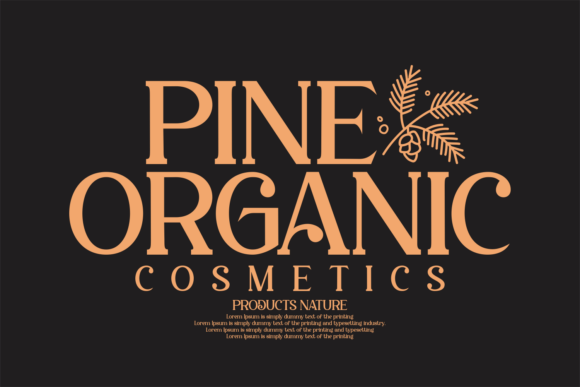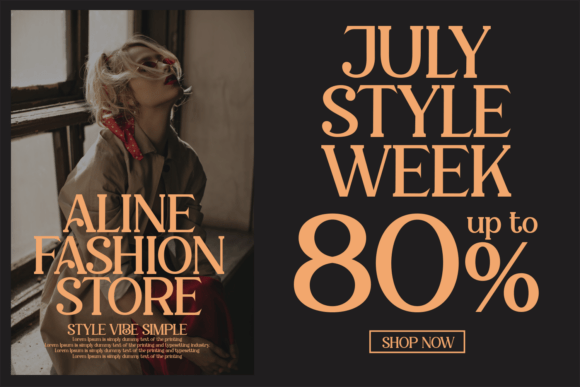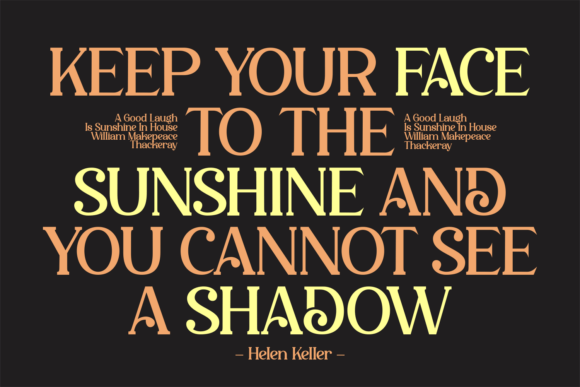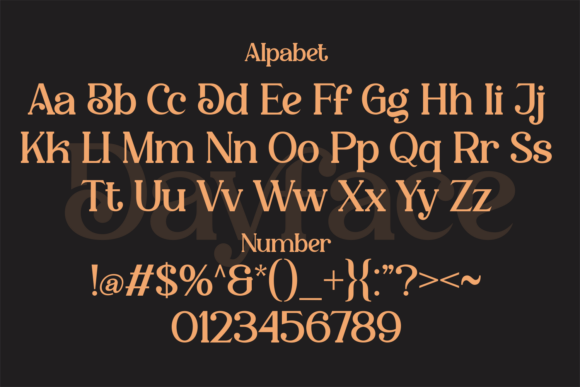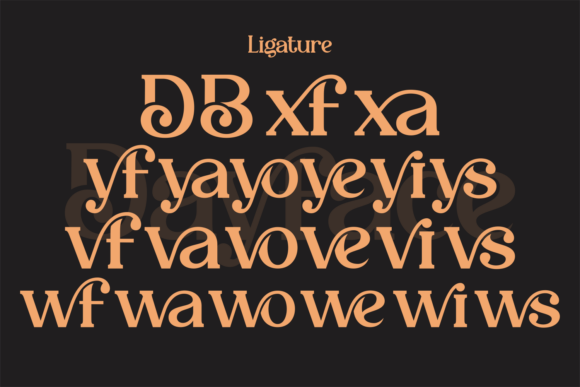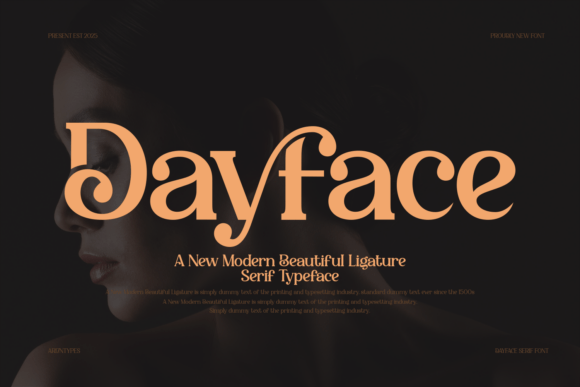
Introducing Dayface: The Luxurious Modern Serif Ligature Typeface
In the world of typography, a new font has emerged that is making waves among designers and crafters alike. Meet “Dayface,” a modern serif ligature typeface that exudes luxury and elegance, making it the perfect choice for branding, product design, and marketing visuals. In this article, we’ll dive into the features and benefits of Dayface, and explore how it can elevate your design game.
What is Dayface?
Dayface is a carefully crafted typeface that combines the classic appeal of serif fonts with the sophistication of ligatures. Its modern design makes it an ideal choice for brands looking to make a statement and stand out in a crowded market. With its elegant lines and luxurious feel, Dayface is perfect for high-end branding, product packaging, and marketing materials.
Key Features of Dayface
- Modern Serif Design: Dayface boasts a sleek and contemporary serif design that is both timeless and trendy.
- Ligature Support: The font features a range of ligatures, giving your text a unique and sophisticated look.
- Luxurious Appeal: Dayface’s elegant lines and refined curves make it perfect for high-end branding and marketing materials.
- Versatile: The font is suitable for a wide range of applications, from headlines and titles to body text and captions.
Benefits of Using Dayface
So, why choose Dayface for your design projects? Here are just a few benefits of using this stunning typeface:
- Elevate Your Brand: Dayface’s luxurious appeal makes it perfect for brands looking to elevate their image and stand out in a crowded market.
- Enhance Readability: The font’s clear and elegant design makes it easy to read, even at small sizes.
- Increase Versatility: Dayface’s range of ligatures and versatile design make it suitable for a wide range of applications.
- Save Time: With Dayface, you can create stunning text-based designs quickly and easily, saving you time and effort.
Who is Dayface for?
Dayface is perfect for a range of designers and crafters, including:
- Graphic Designers: Looking for a luxurious and elegant font for branding, packaging, and marketing materials.
- Product Designers: Seeking a high-end font for product design, packaging, and labeling.
- Marketing Professionals: Needing a sophisticated font for marketing materials, such as brochures, flyers, and social media graphics.
- Crafters and Makers: Looking for a unique and elegant font for craft projects, such as handmade cards, gift tags, and iron-on designs.
How to Use Dayface
Using Dayface is easy! Here are a few tips to get you started:
- Pair with Other Fonts: Dayface pairs well with a range of fonts, from sans-serif to script.
- Experiment with Ligatures: Take advantage of Dayface’s ligature support to add a touch of sophistication to your text.
- Adjust Font Sizes: Use Dayface at a range of font sizes to create visual interest and hierarchy.
In conclusion, Dayface is a stunning modern serif ligature typeface that is perfect for designers and crafters looking to add a touch of luxury and elegance to their work. With its versatile design, ligature support, and elegant lines, Dayface is sure to elevate your design game and help you stand out in a crowded market. So why wait? Try Dayface today and see the difference it can make!